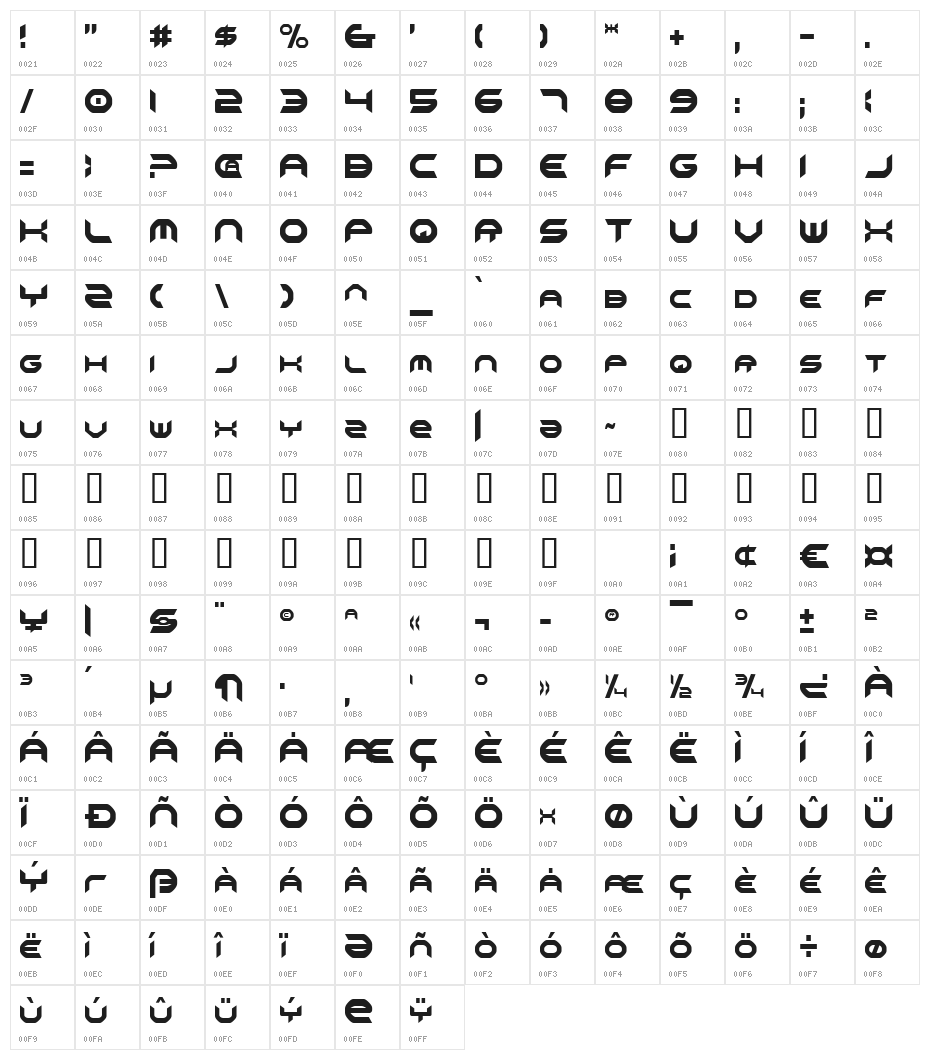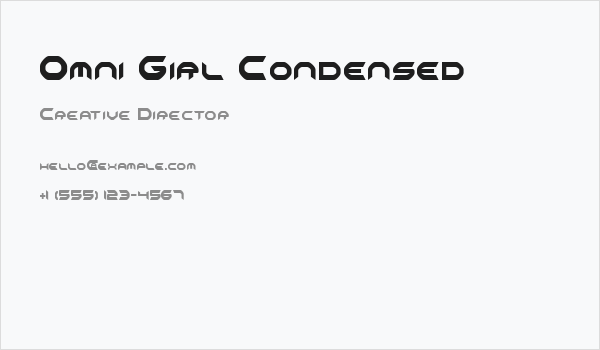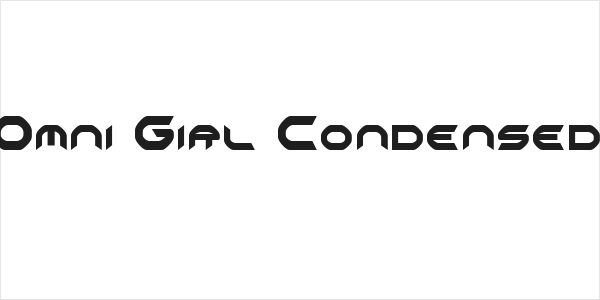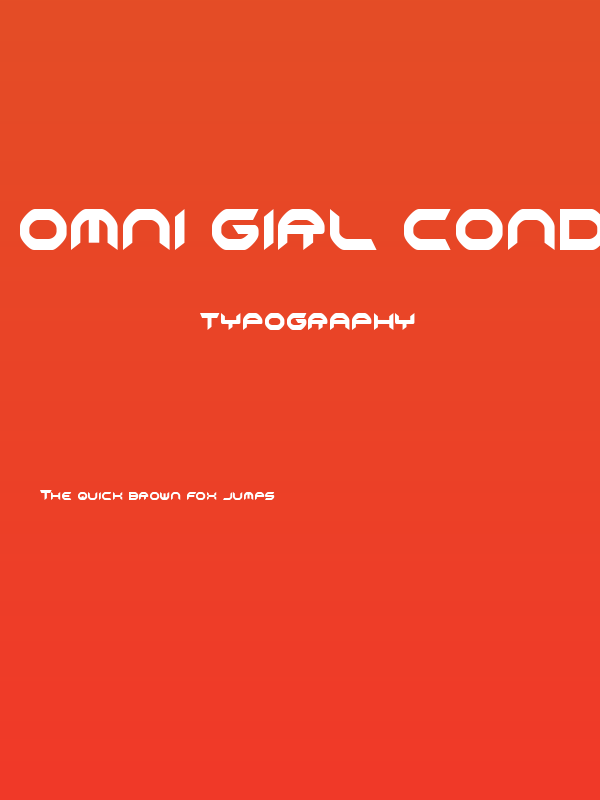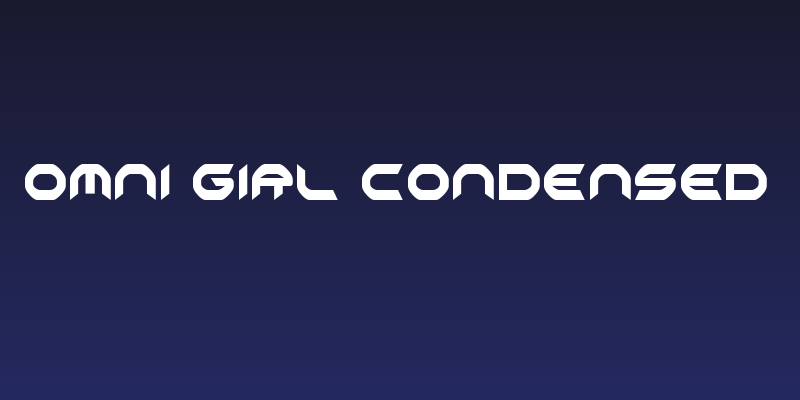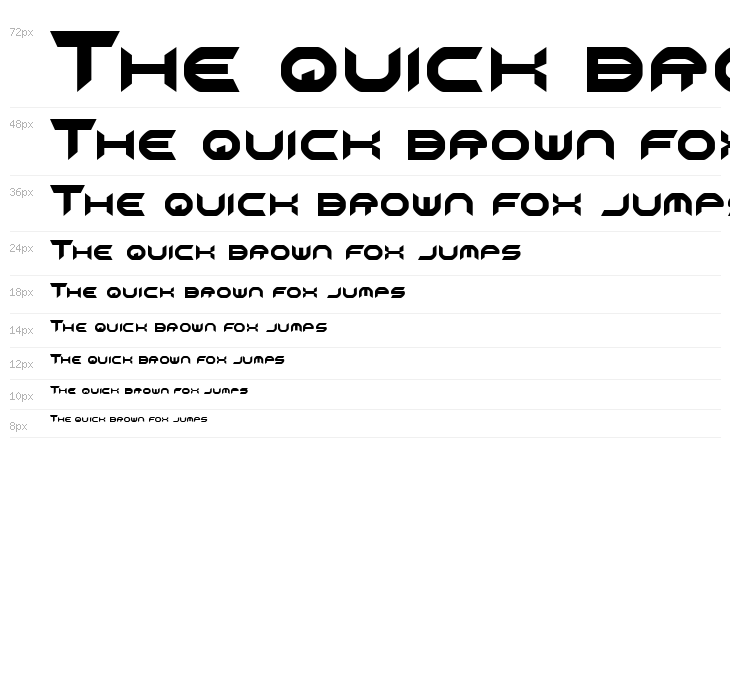
Omni Girl Condensed Font
Omni Girl Condensed Description
This font features a futuristic and geometric design, characterized by sharp angles and bold lines. The characters are condensed, giving a compact and modern appearance. The uppercase and lowercase letters maintain a consistent style, with unique cuts and edges that create a sense of movement and dynamism. The numerals and special characters follow the same design principles, ensuring uniformity across the typeface. This font's distinct style makes it suitable for projects that require a modern and edgy look.
| Proposed Projects | Ideal for sci-fi themed designs, technology branding, video game titles, and modern posters. |